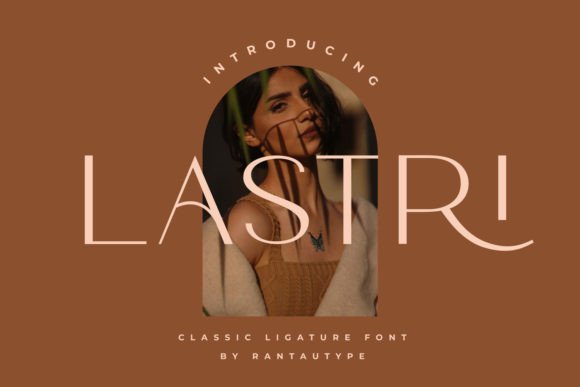
Introducing Lastri Font, the ultimate choice for those seeking the best font for business cards. Created by RantauType, this font family is a masterpiece that exudes elegance and contemporary style. Lastri Font is not just another sans serif; it is a powerful tool that will elevate your designs and captivate your audience.
With its clean lines and subtle curves, Lastri Font boasts a sleek and sophisticated look that is bound to leave a lasting impression. Its versatility is unparalleled, making it the perfect choice for a wide range of design projects. Whether you are working on branding, editorial layouts, or social media graphics, Lastri Font adds a touch of modern femininity that sets it apart from the rest.
Imagine your business card adorned with Lastri Font, instantly catching the eye of potential clients. Its captivating presence will convey professionalism and grab attention, ensuring that your card stands out from the competition. With Lastri Font, your business cards will leave a lasting impact, representing your brand with style and sophistication.
But Lastri Font is not limited to business cards alone. Its beauty shines through in editorial layouts, effortlessly enhancing the readability and aesthetic appeal of your written content. Whether it's a magazine spread, a book cover, or a website layout, Lastri Font brings a sense of elegance and modernity that elevates your design to new heights.
Social media graphics are another area where Lastri Font truly shines. With its feminine charm and contemporary style, this font adds a touch of class to your posts and ads. Imagine the impact of your words when they are presented in Lastri Font, capturing the attention of your audience and leaving a lasting impression. Your social media presence will become a visual delight, drawing in followers and turning them into loyal customers.
In conclusion, Lastri Font is not just a font; it is a game-changer. Its feminine allure, modern design, and versatility make it the best font for business cards and beyond. Let Lastri Font be the secret weapon in your design arsenal, empowering you to create captivating and impactful compositions. Download Lastri Font today and unlock a world of endless possibilities.